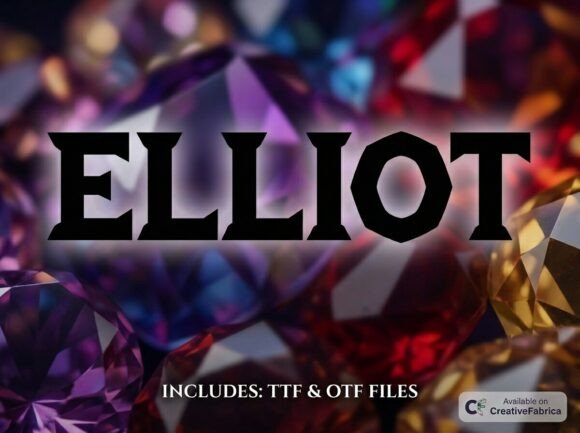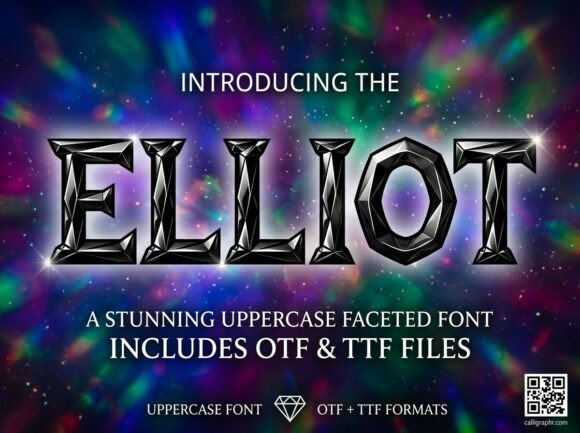
Introducing Elliot Font: A Stunning Decorative Display Font
Are you tired of using the same old fonts for your designs? Look no further than Elliot Font, a unique and artistic display font that’s sure to turn heads. With its strong visual personality and decorative elements, this font is perfect for creators who want to add a touch of elegance and sophistication to their work.
What Makes Elliot Font Special?
Elliot Font is a decorative display font that’s designed to be the center of attention. Its unique artistic elements and strong visual personality make it perfect for bold headlines, artistic logos, and creative packaging. Whether you’re a designer, craftsperson, or DIY enthusiast, this font is sure to elevate your work to the next level.
Key Features of Elliot Font
- Unique Artistic Elements: Elliot Font features unique artistic elements that set it apart from other fonts. Each letter is carefully crafted to be a work of art, making it perfect for decorative initials and high-impact headlines.
- Strong Visual Personality: This font has a strong visual personality that’s sure to grab attention. Its bold and elegant design makes it perfect for logos, packaging, and other creative projects.
- Versatile: Elliot Font is versatile enough for use in a variety of projects, from bold headlines and artistic logos to creative packaging and more.
- Professional and Polished Finish: Despite its decorative nature, Elliot Font maintains a professional and polished finish that’s suitable for even the most high-end designs.
IMPORTANT NOTE BEFORE PURCHASE: Elliot Font is an ALL-CAPS (Uppercase Only) display typeface. This means that it does not include lowercase letters. It’s specifically designed for high-impact headlines, logos, and decorative initials where every letter is a work of art.
Why Choose Elliot Font?
There are many reasons why Elliot Font is a great choice for designers and crafters. Here are just a few:
- Add a Touch of Elegance: Elliot Font adds a touch of elegance and sophistication to any design. Its unique artistic elements and strong visual personality make it perfect for creating high-end designs.
- Stand Out from the Crowd: With Elliot Font, you can create designs that stand out from the crowd. Its bold and decorative design makes it perfect for use in headlines, logos, and other creative projects.
- Perfect for Creative Projects: Elliot Font is perfect for use in a wide range of creative projects, from graphic design and branding to crafting and DIY projects.
Tips for Using Elliot Font
Here are a few tips for getting the most out of Elliot Font:
- Use it for Headlines and Titles: Elliot Font is perfect for use in headlines and titles. Its bold and decorative design makes it easy to grab attention and add emphasis to your text.
- Experiment with Colors and Textures: Don’t be afraid to experiment with different colors and textures when using Elliot Font. Its unique artistic elements and strong visual personality make it perfect for use with a wide range of design elements.
- Pair it with Other Fonts: Elliot Font can be paired with other fonts to create a unique and visually appealing design. Try pairing it with a simple sans-serif font for a bold and modern look.
Elliot Font is a stunning decorative display font that’s perfect for creators who want to add a touch of elegance and sophistication to their work. With its unique artistic elements, strong visual personality, and versatile design, this font is sure to elevate your designs to the next level. Whether you’re a designer, craftsperson, or DIY enthusiast, Elliot Font is a great choice for any creative project.